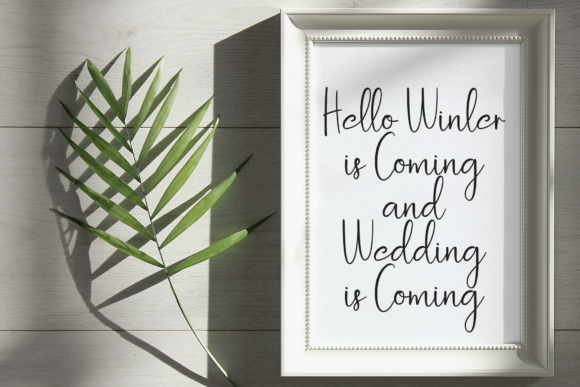
Blackpink Font
About Blackpink Font
Blackpink is a relaxed and casual handwritten font that was crafted with great care to produce the expected results. It will look stunning on any poster, flyer or print.